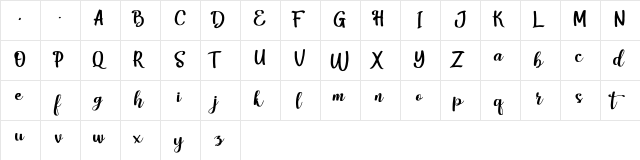
Harley Script Regular
Design Context for Harley Script Typeface
Harley Script brings a calligraphic fluidity to the page — its connecting strokes and expressive curves give it an unmistakably human quality.
Font Pairing: Combine Harley Script with a simple geometric sans for maximum contrast — the tension between flowing curves and clean structure is a classic typographic pairing.
Pro Tip: Use Harley Script for short runs of text — names, titles, or taglines. Extended body copy in script faces tires the eye quickly.